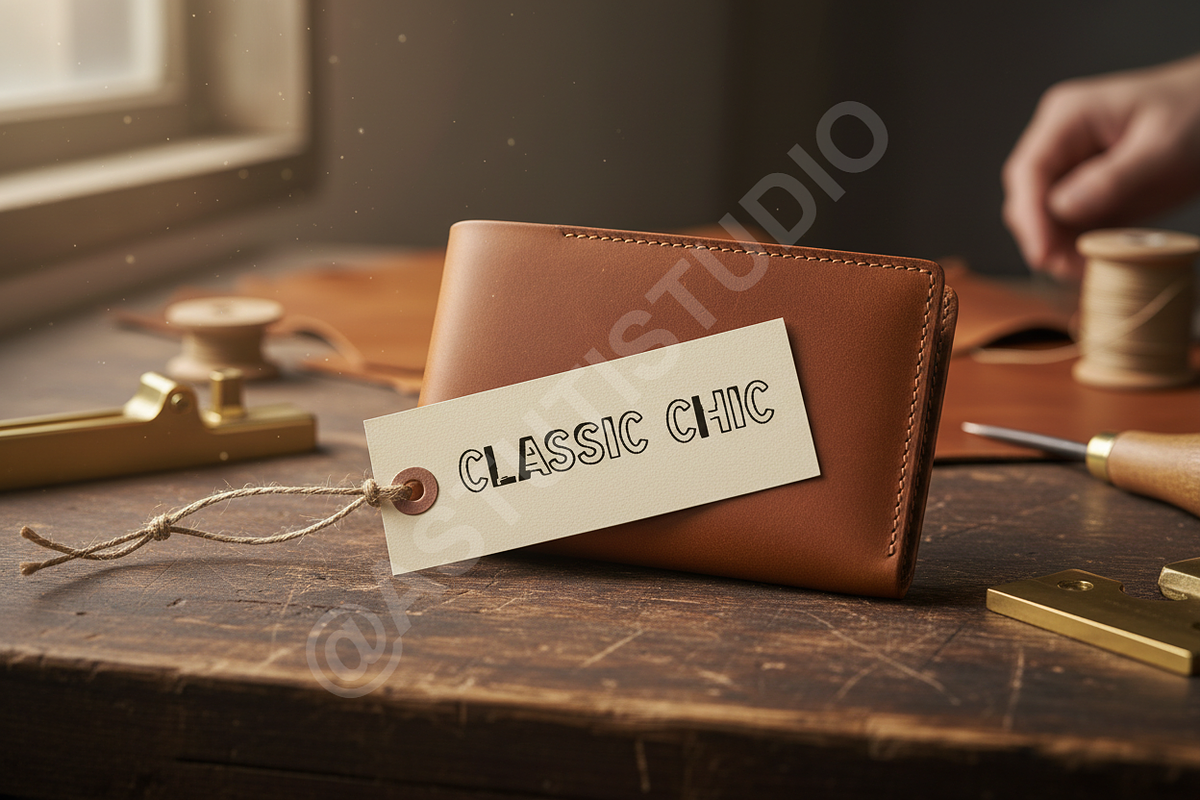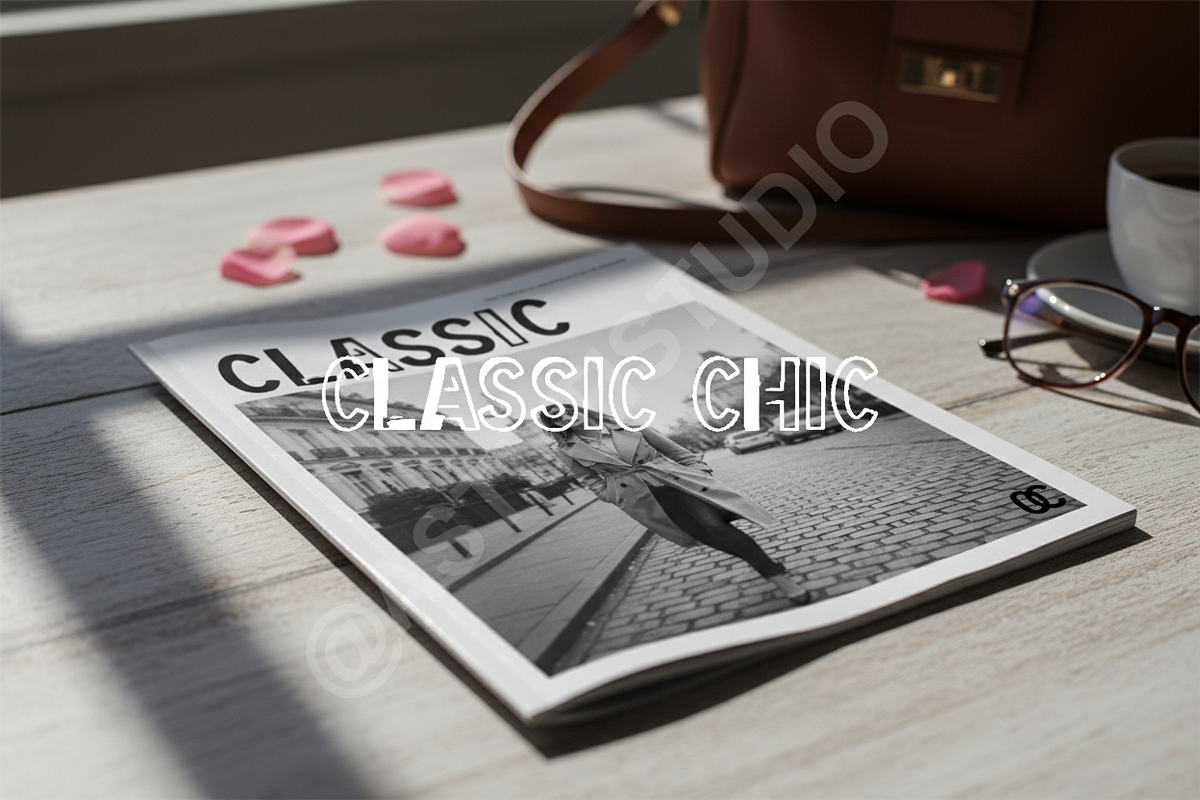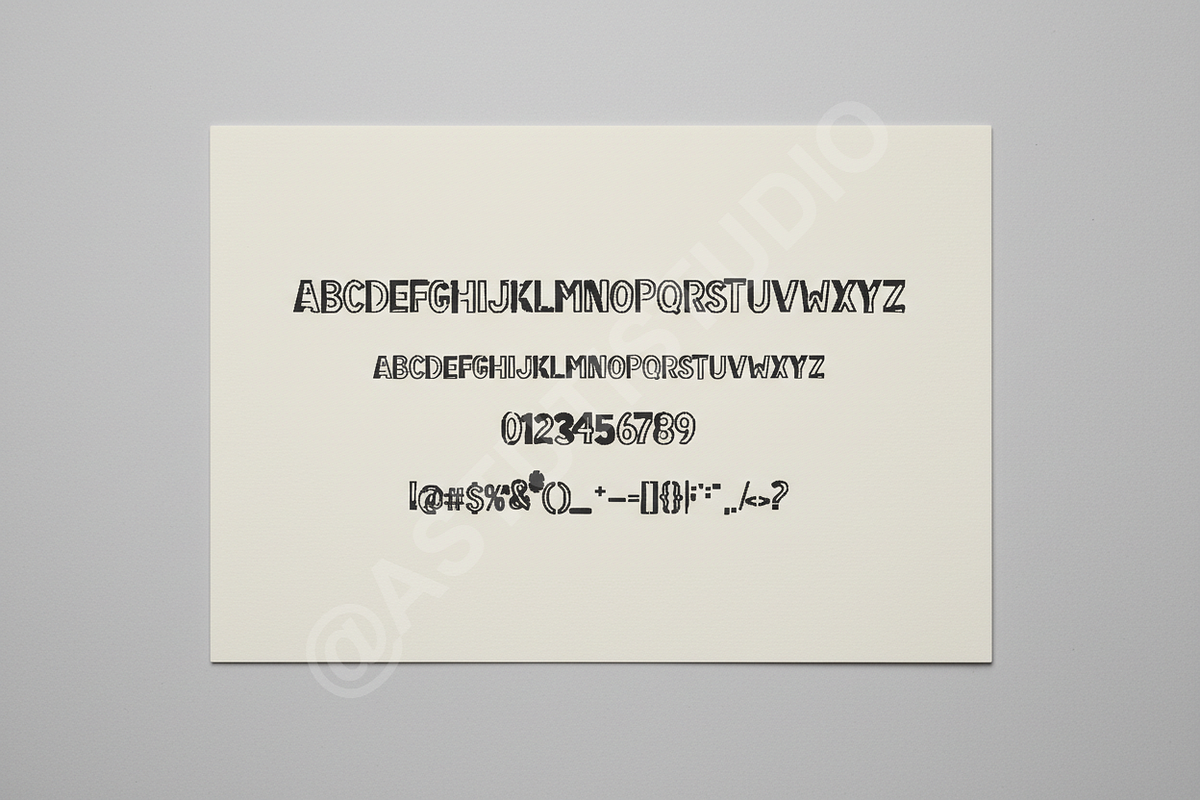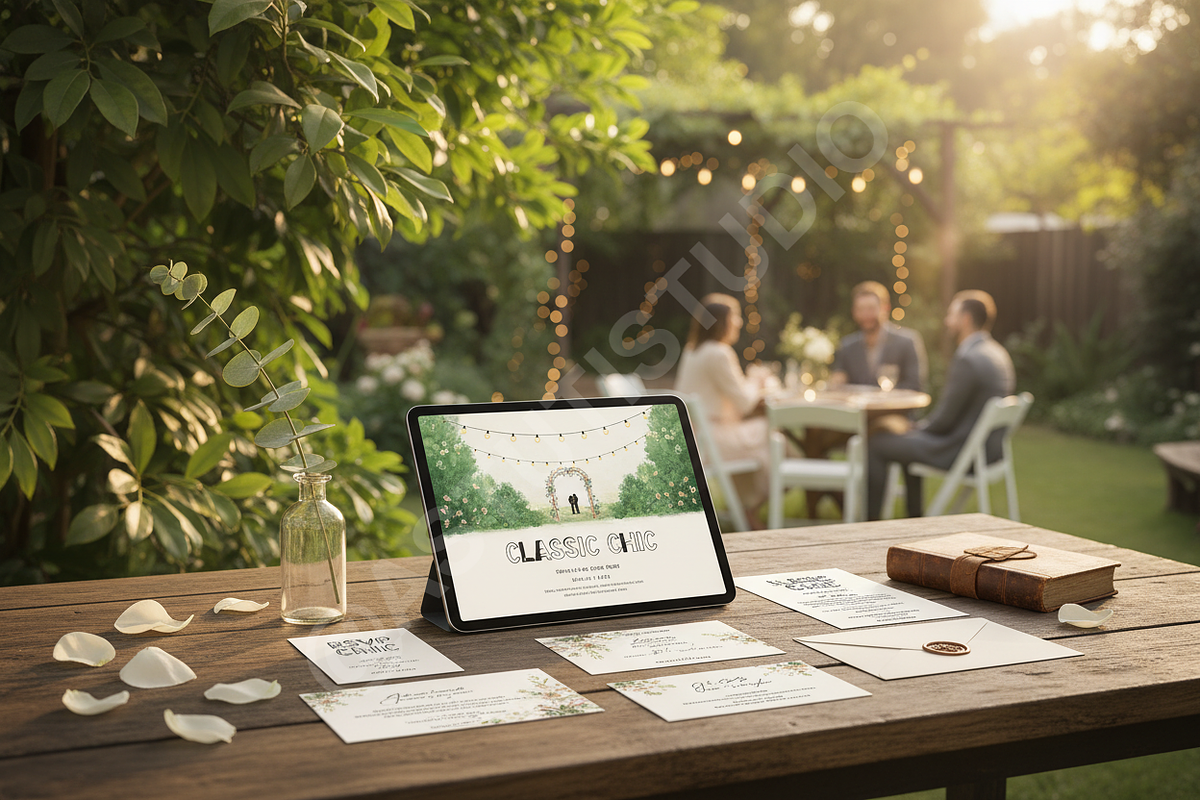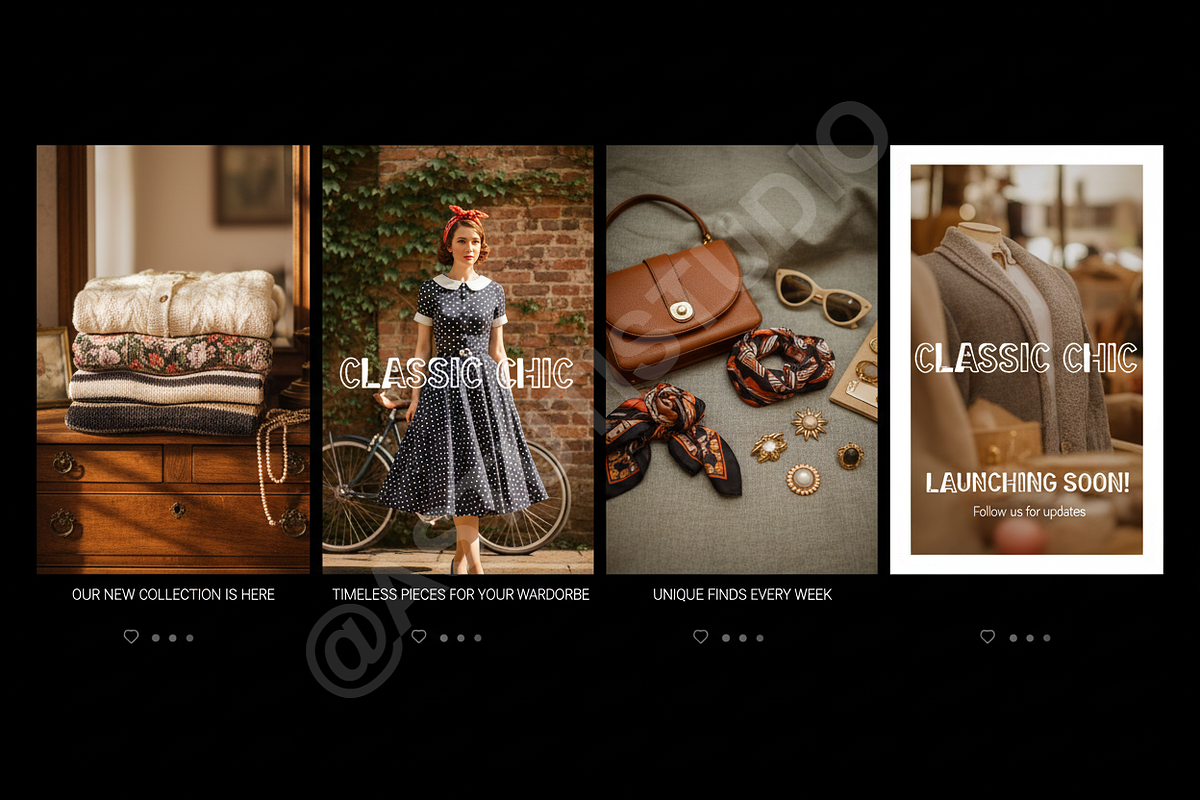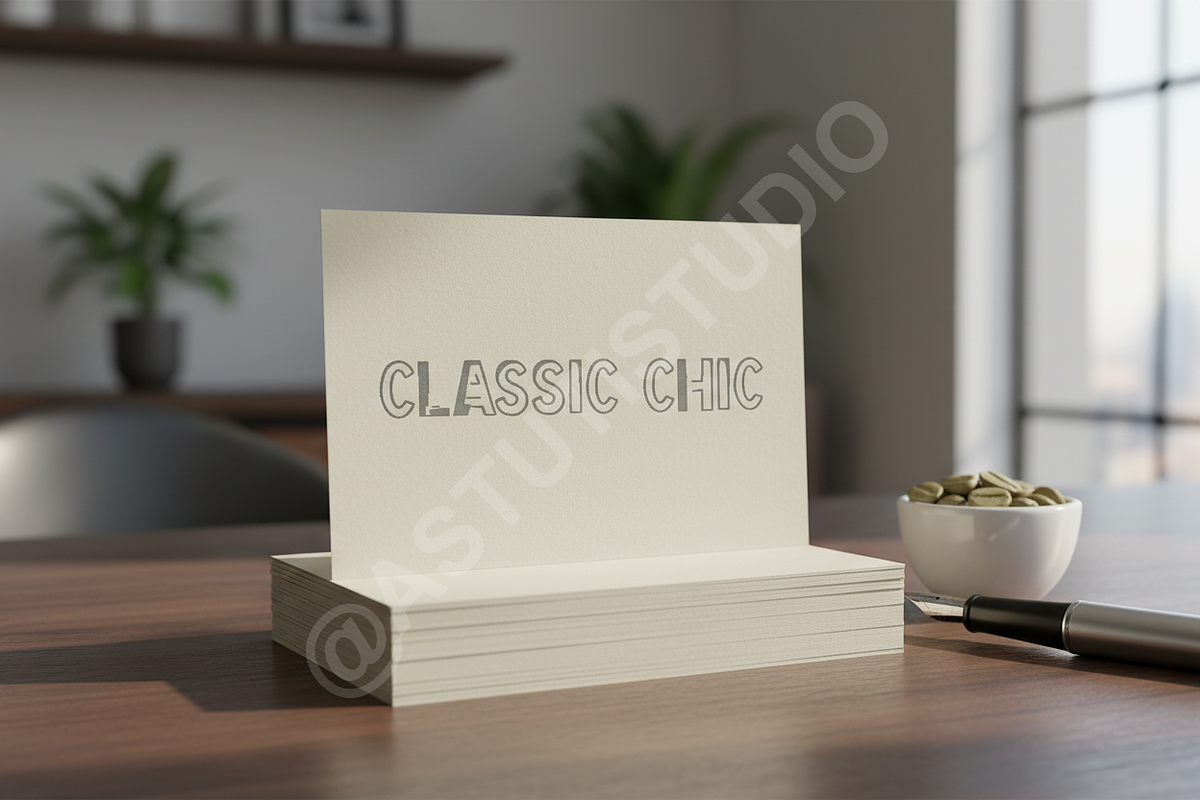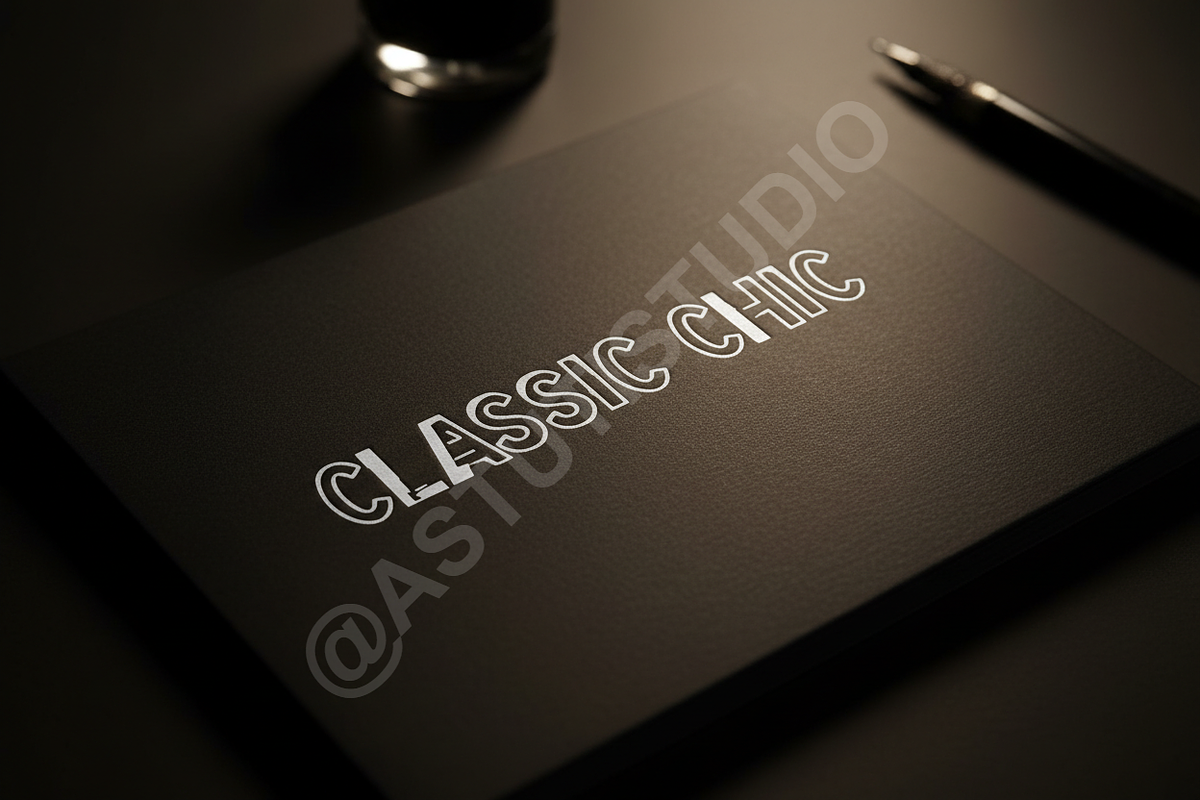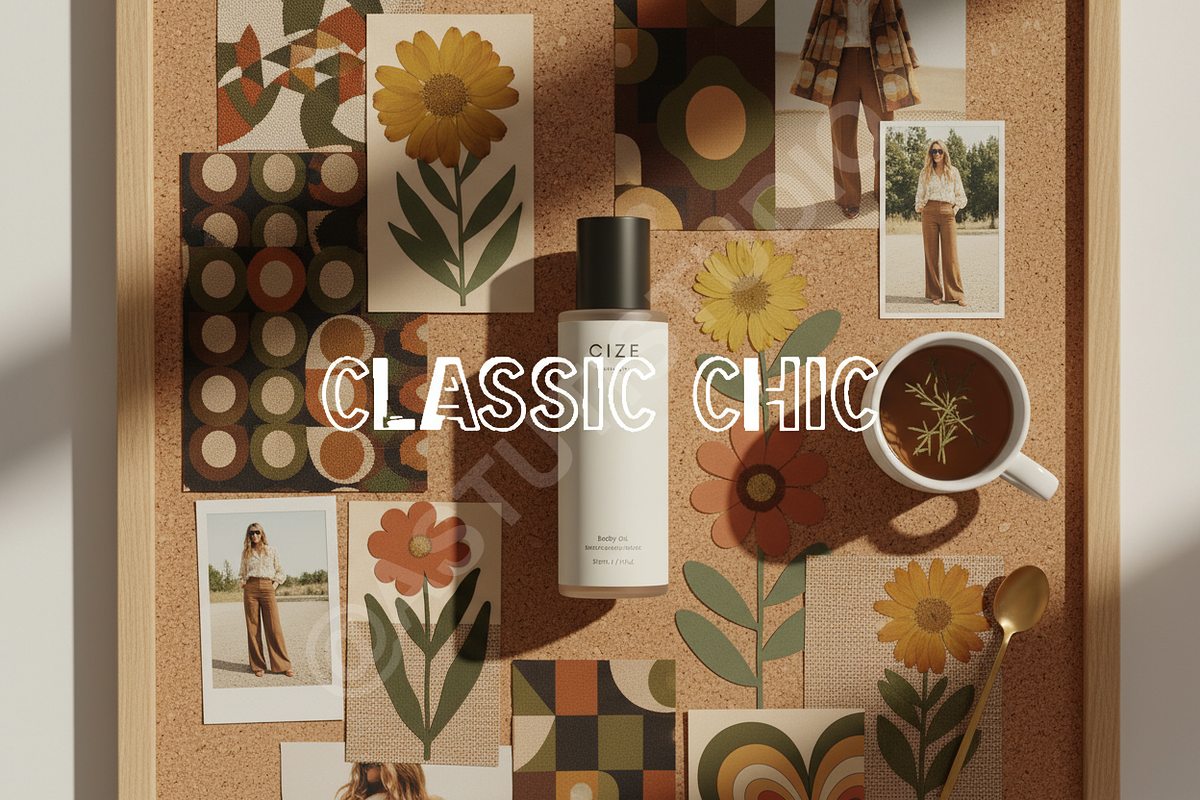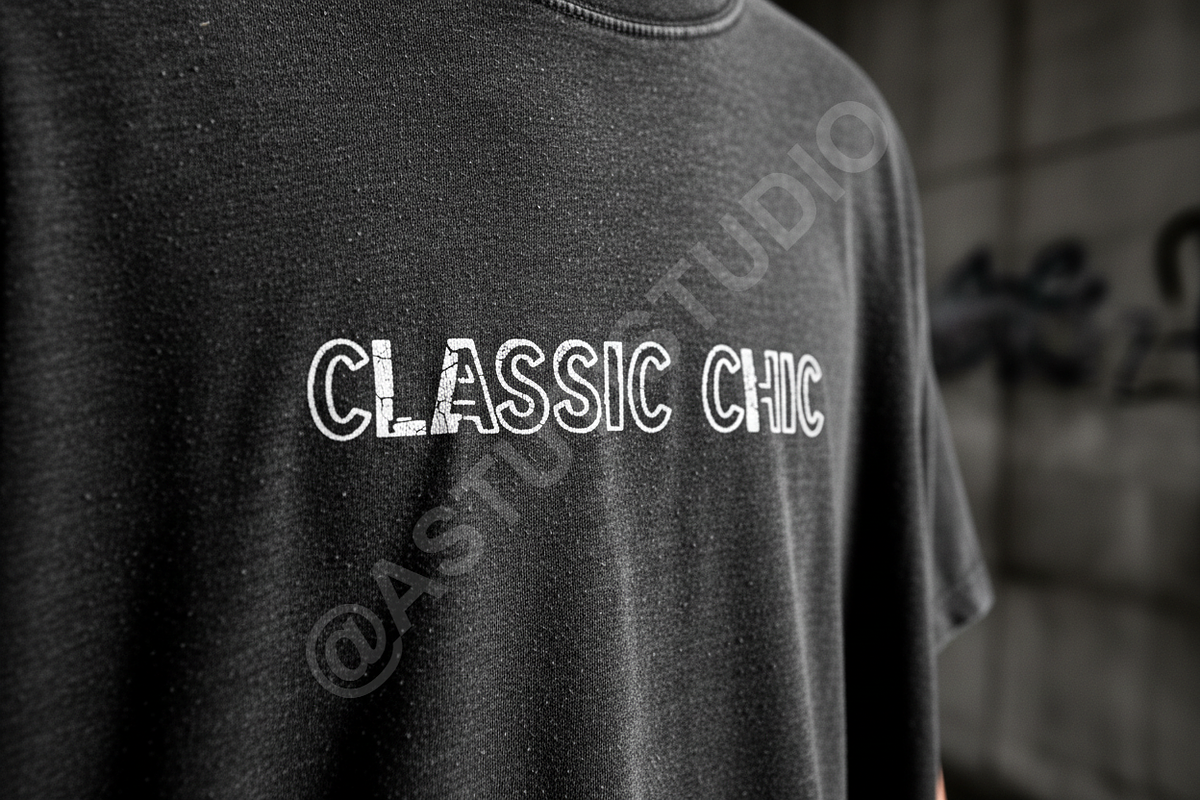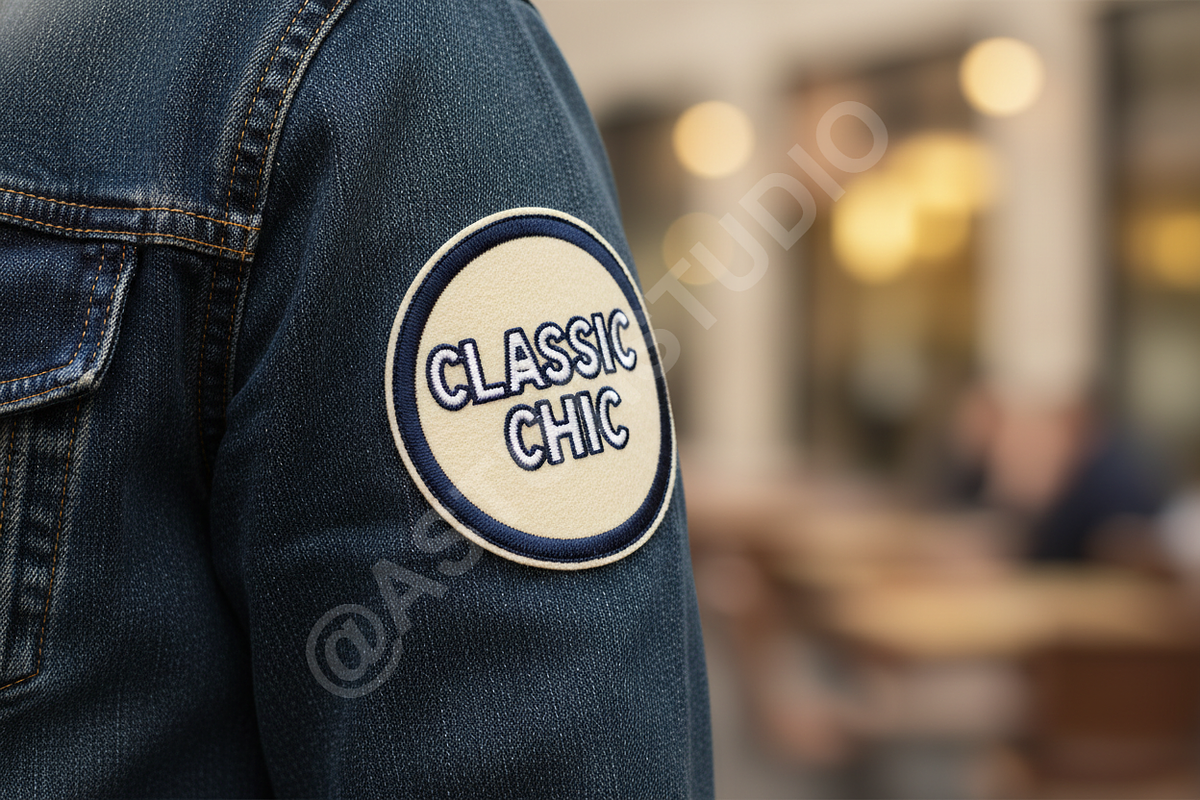
Cize | The Elegant High-Contrast Dis
Cize is a truly refined and commanding typeface, engineered for the intersection of modern elegance and powerful readability. Drawing inspiration from timeless high-fashion typography, Cize utilizes sharp contours and generous counter-forms to establish immediate authority. This premium font is the definitive choice for projects demanding sophistication and lasting impact.
Cize is built to elevate your creative work, providing a sleek, unforgettable aesthetic that resonates with high-end clientele. Its precision makes it effortless to integrate into any design ecosystem, ensuring a professional and polished final result.
- Unrivaled Versatility: Perfect for impactful editorial layouts, prestigious luxury branding, high-end packaging, and dynamic social media campaigns.
- High Contrast Design: Sharp thick/thin transitions create dramatic visual appeal, ideal for headlines and large display use.
- Optimized Kerning: Meticulously adjusted spacing ensures clean, professional output, even at extreme sizes.
- Full Punctuation & Numerals: Comprehensive character set for complete creative freedom.
- Multilingual Support: Extended Latin characters coverage for global reach and accessibility.